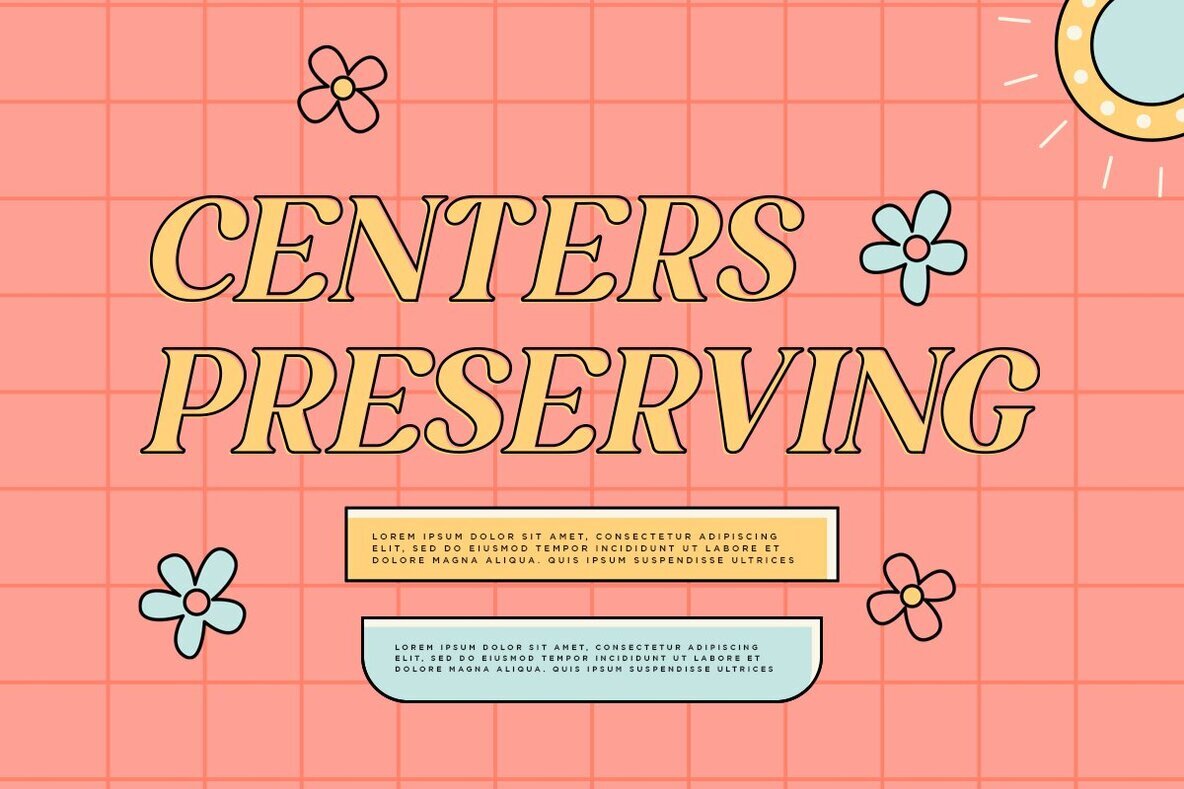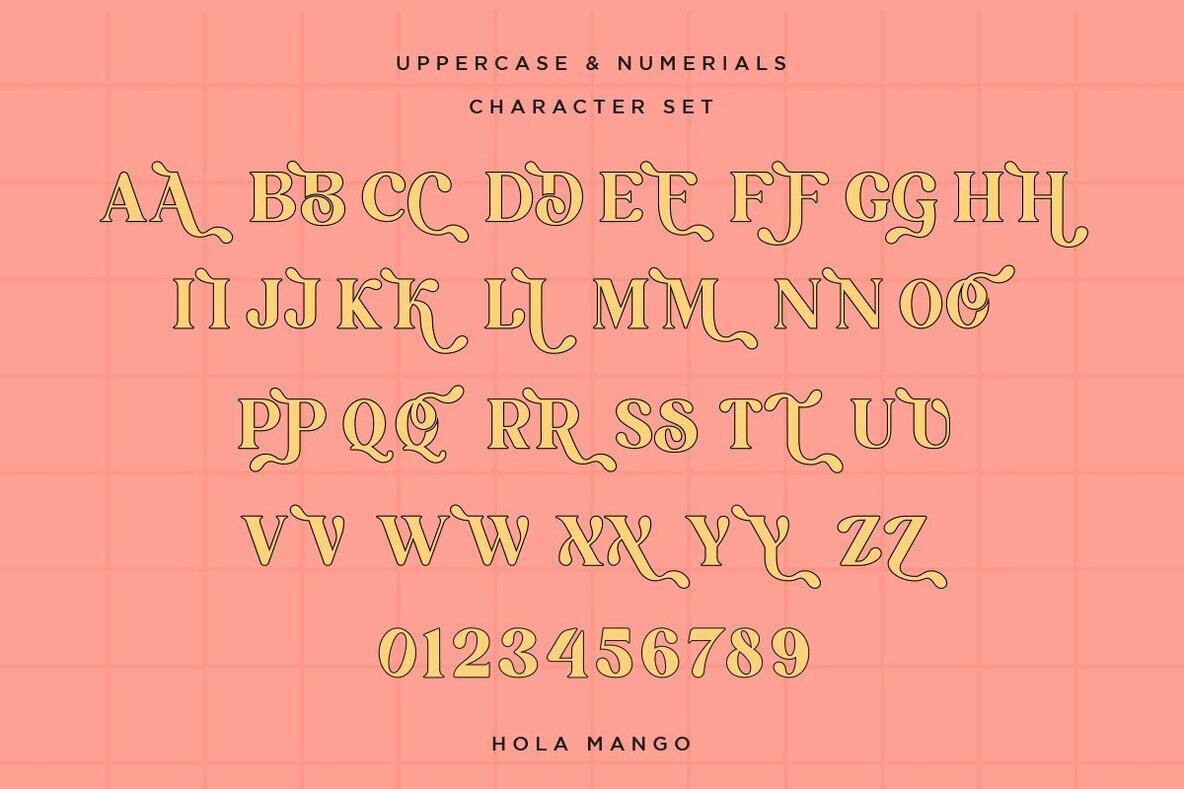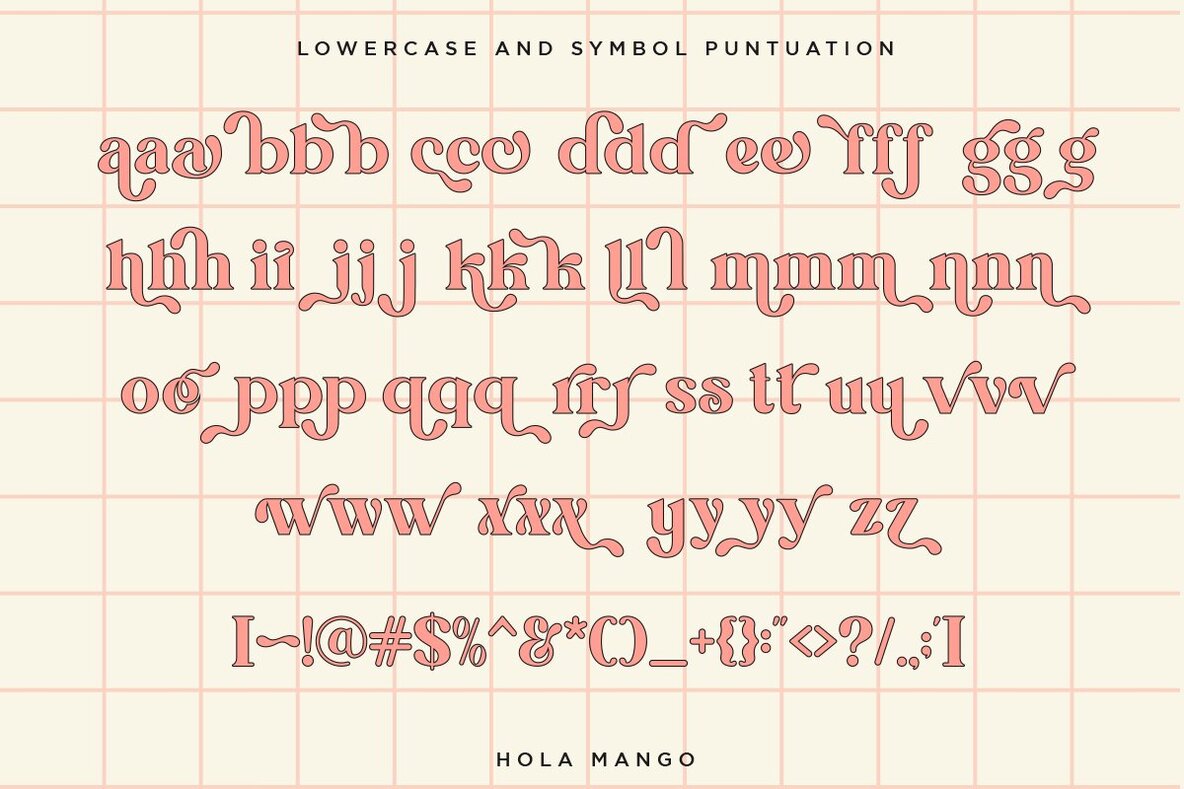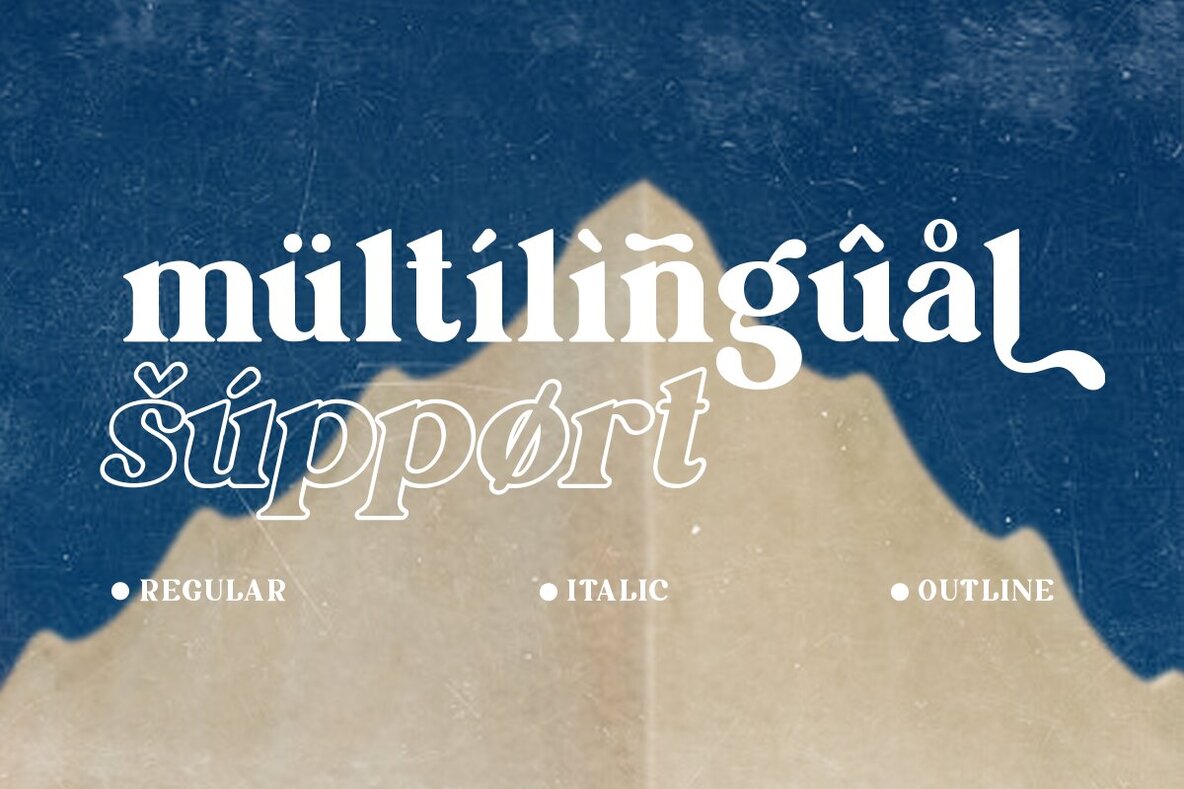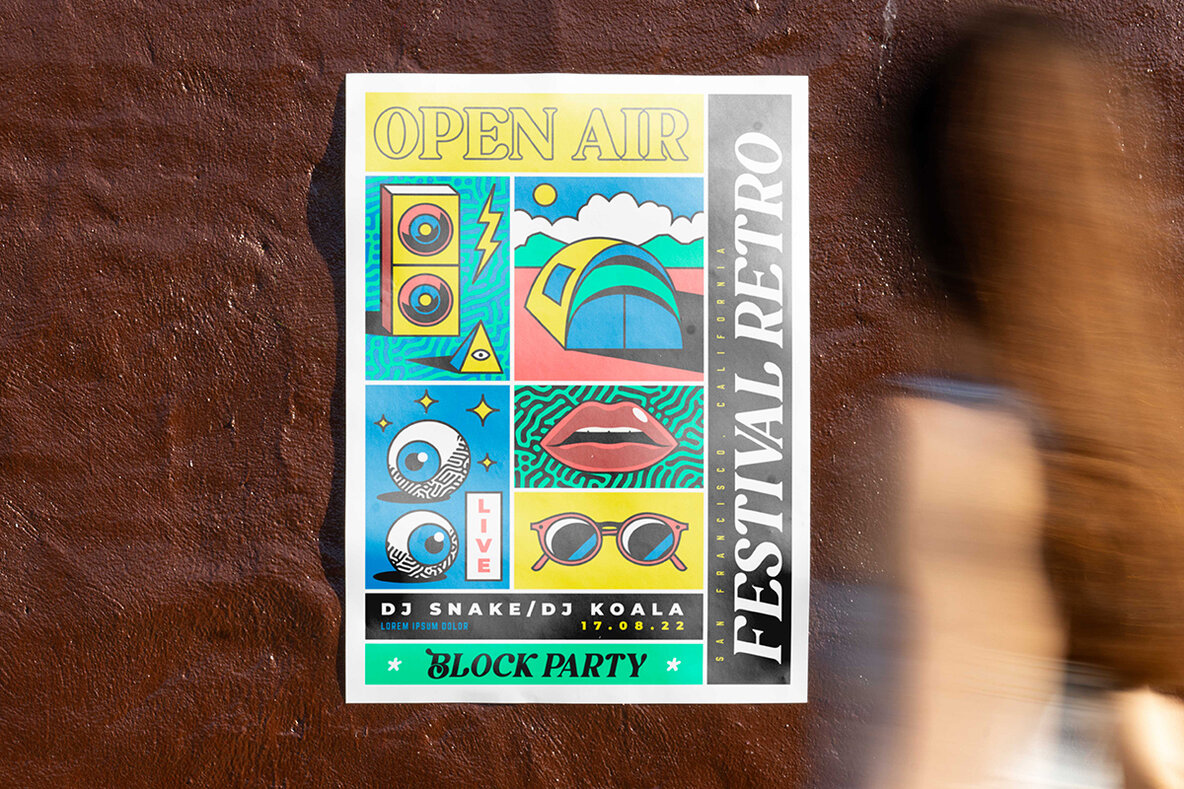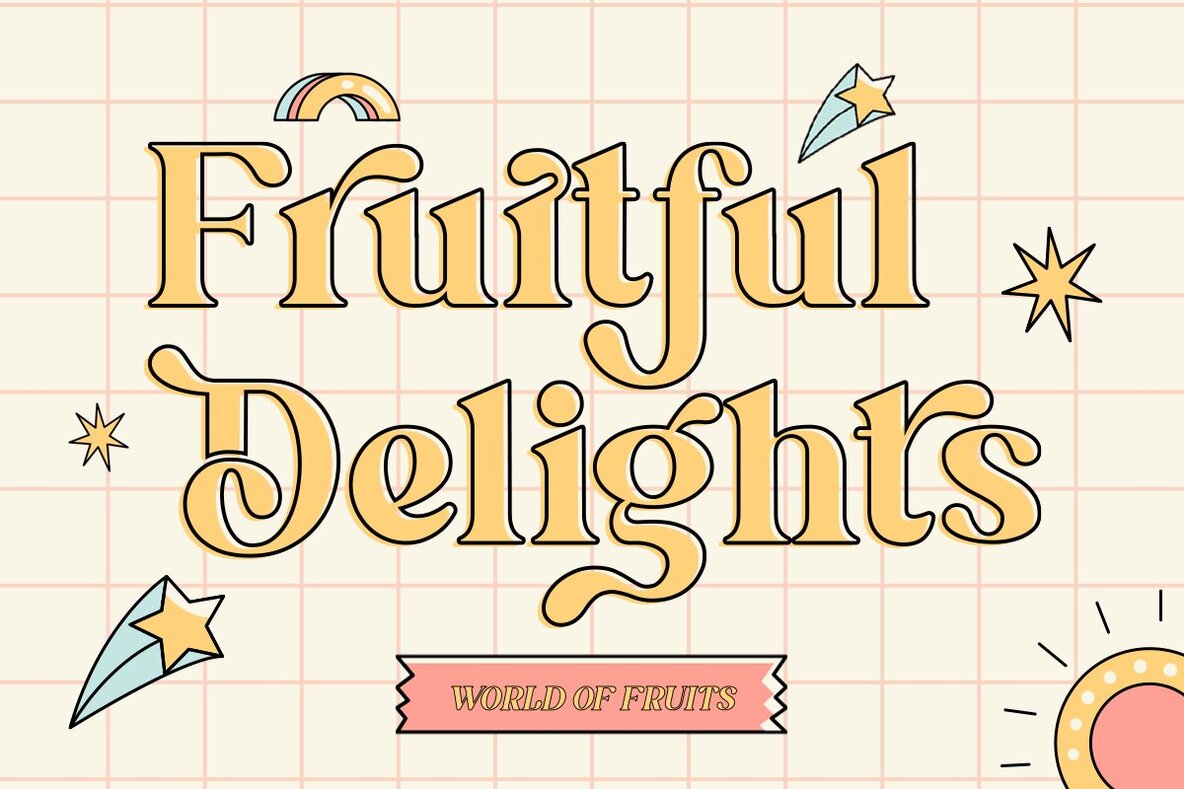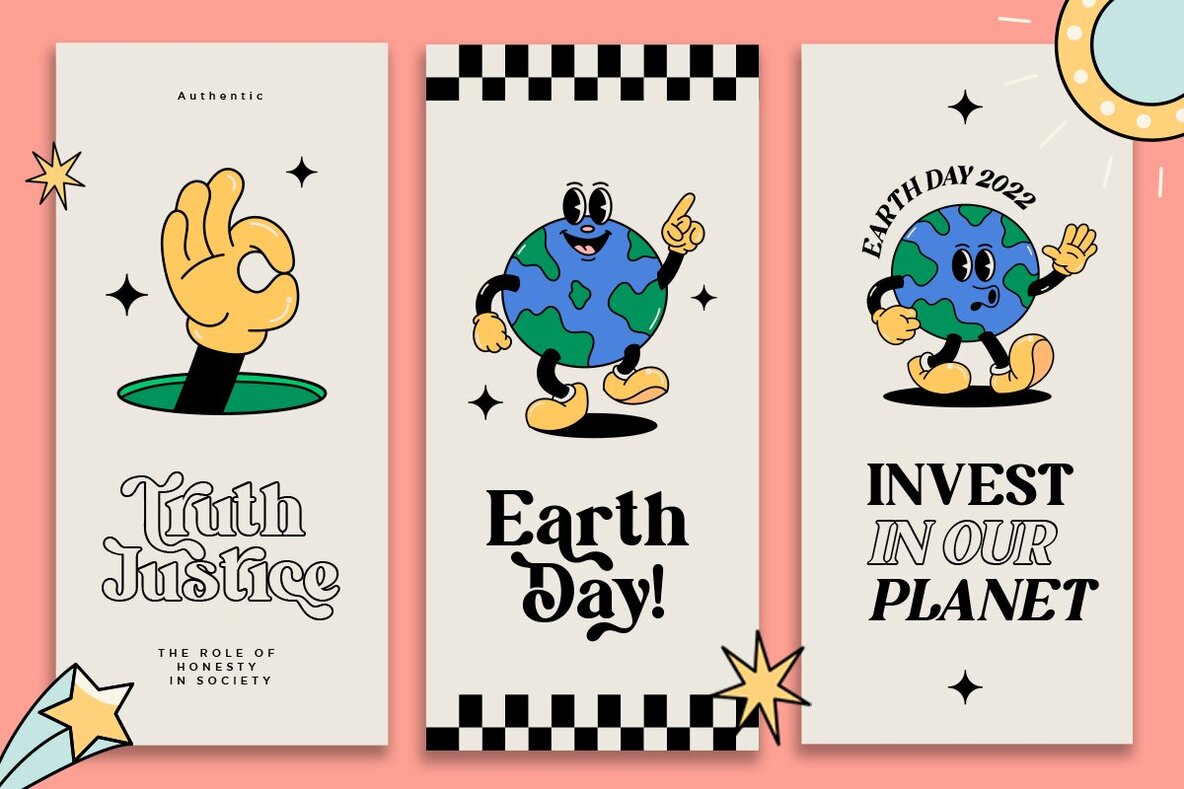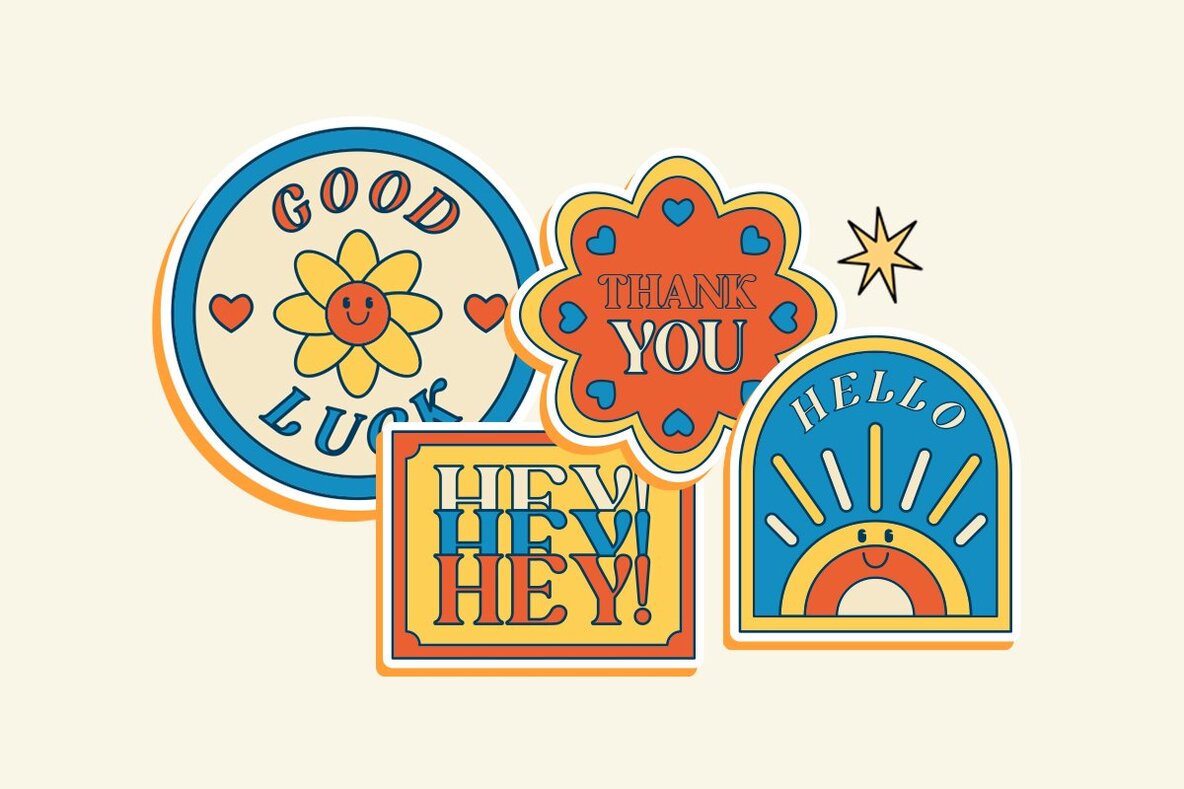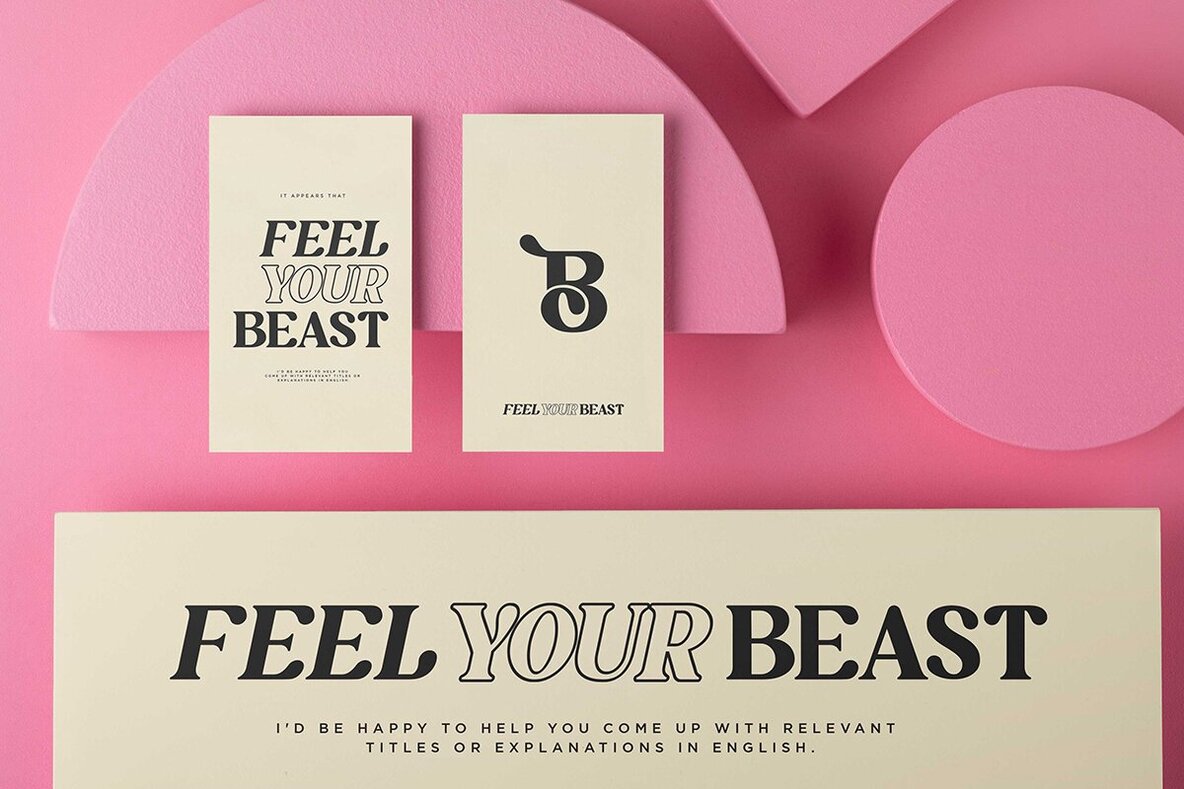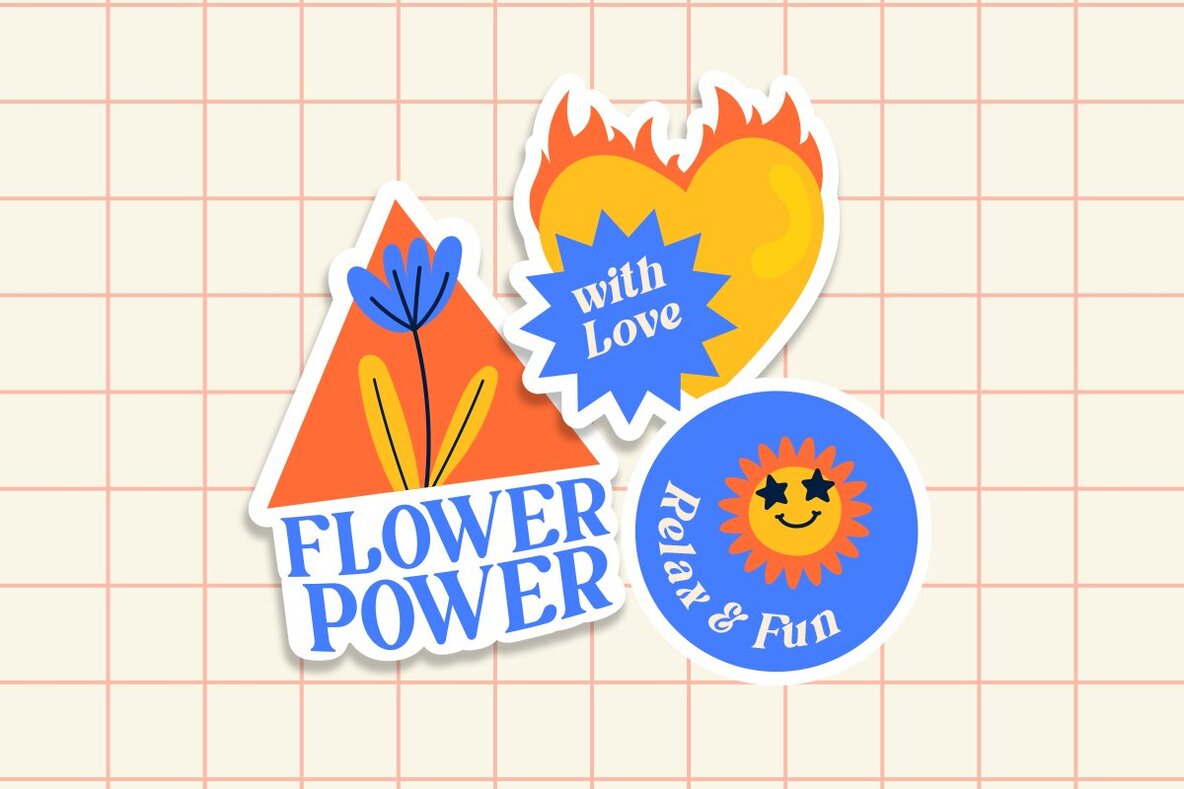
Hola Mango Font
Introducing Tequila Blanco, a rustic all-caps typeface inspired by the rugged beauty of the Arizona desert. This typeface features characters with a handcrafted feel, marked by imperfections, rough edges, and a touch of rustic boho charm. Unique curved spurs in select letters add extra personality, perfect for creating an adventurous and wilderness-inspired look. Tequila Blanco is designed to trigger a sense of wanderlust and adventure. It's an ideal choice for rustic branding, logos, packaging, quotes, and more. The typeface family includes 15 variations of the original font, featuring light, smooth, short, and squat versions, all available in oblique styles.Hola Mango: Rustic All-Caps Typeface with Distinctive Charm
Ideal for Various Designs